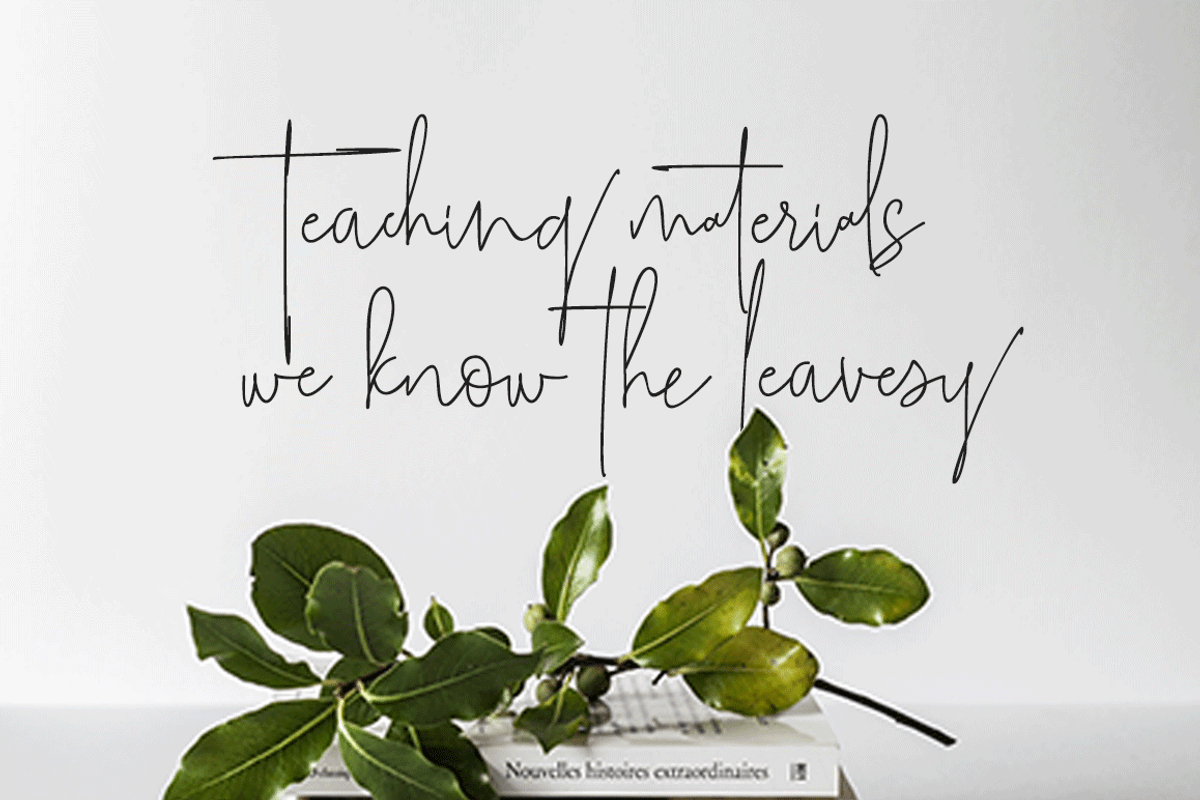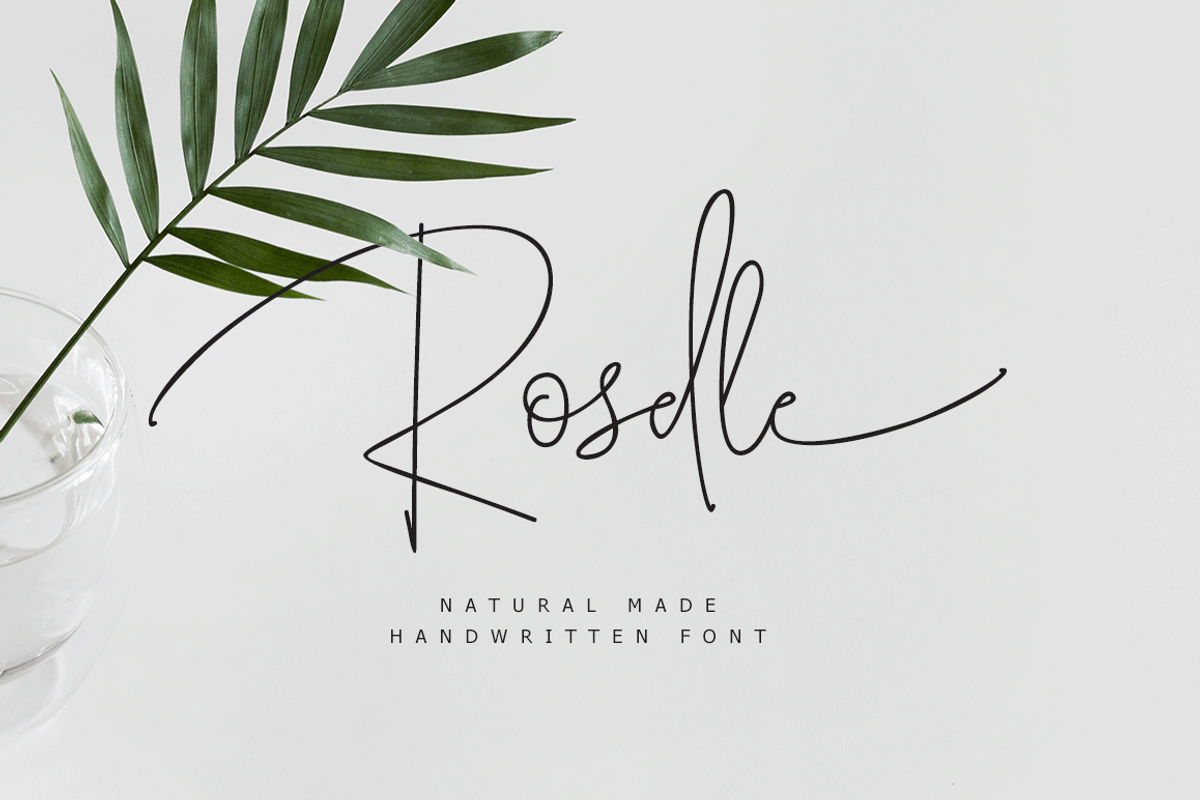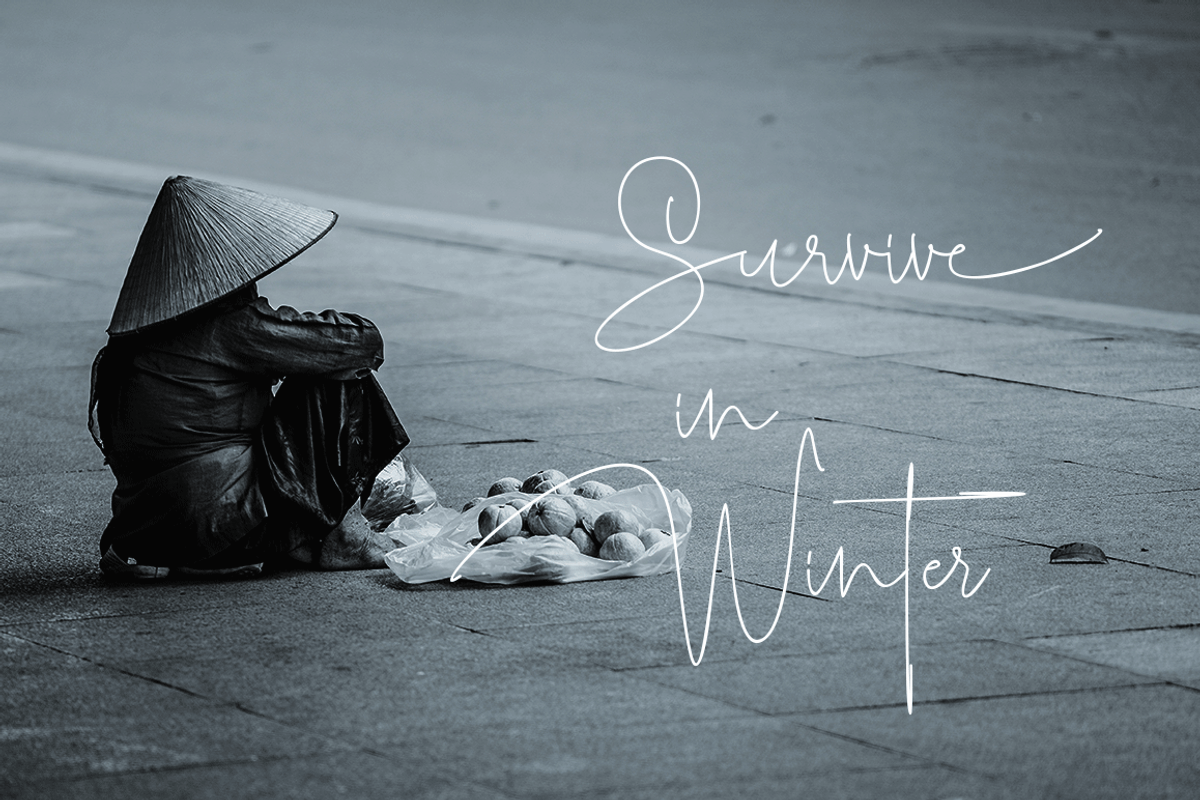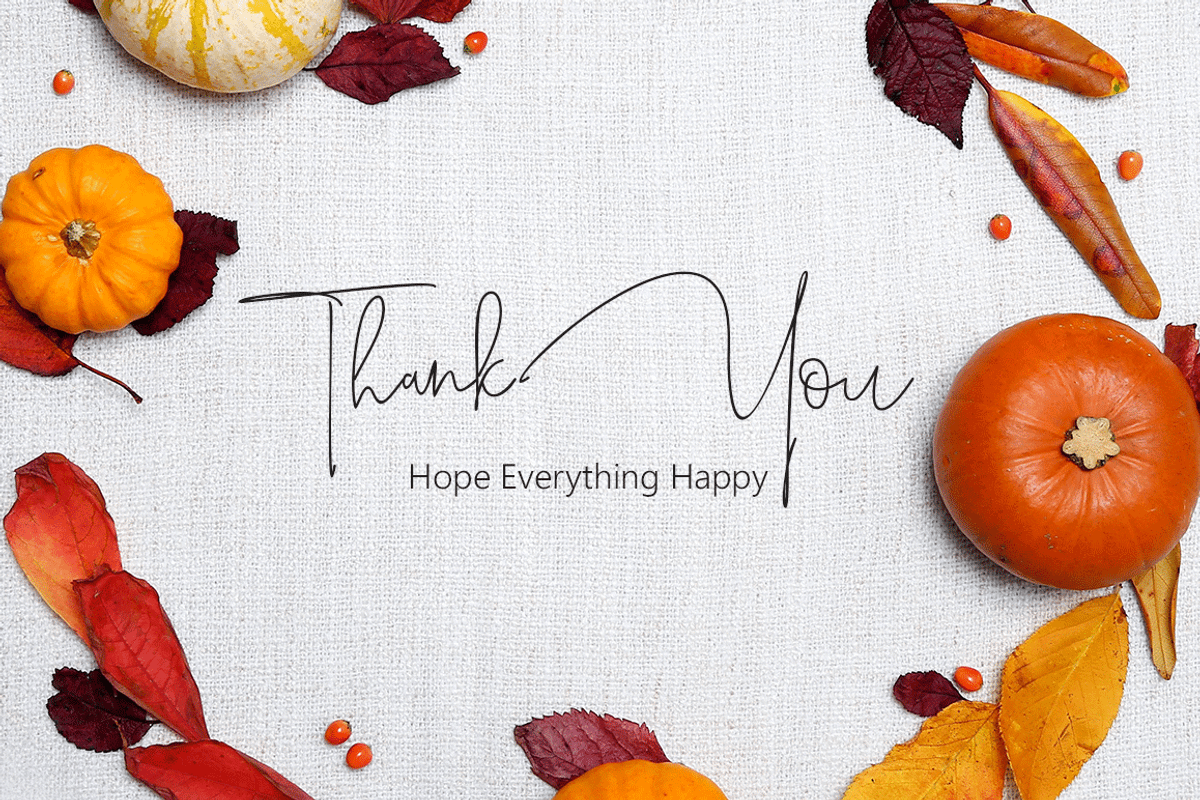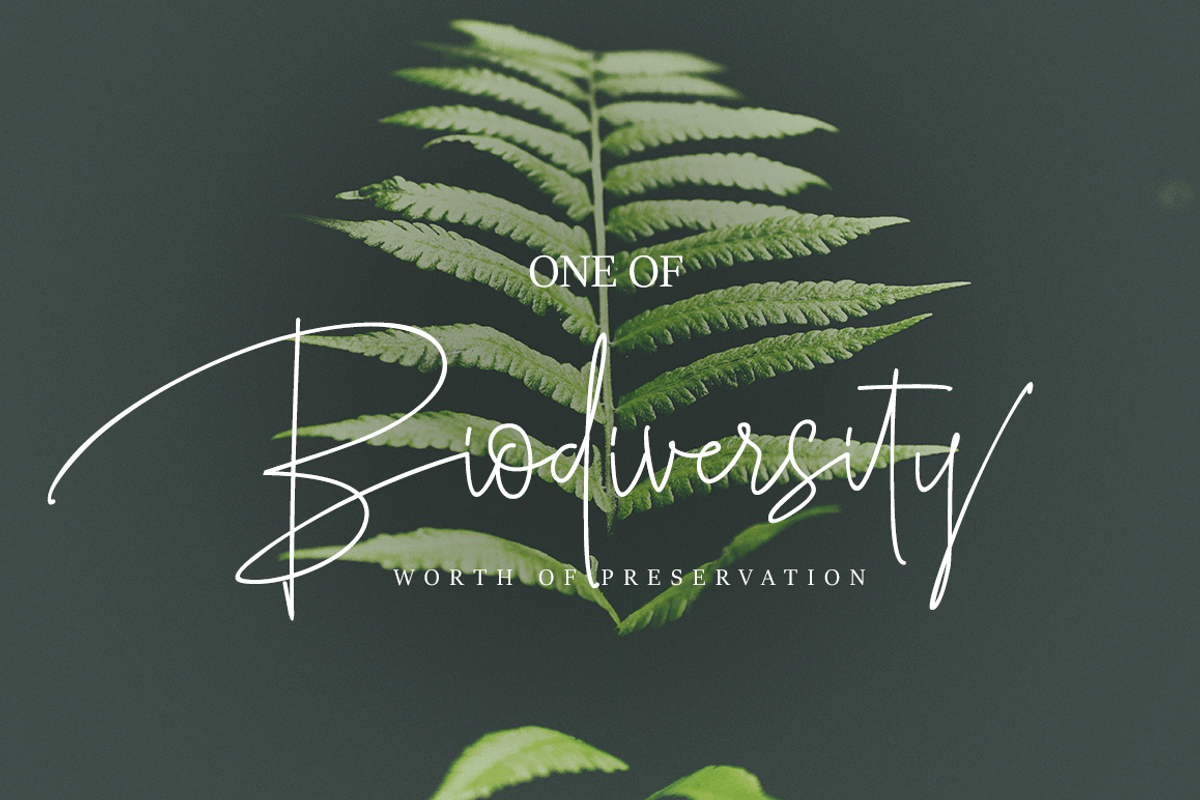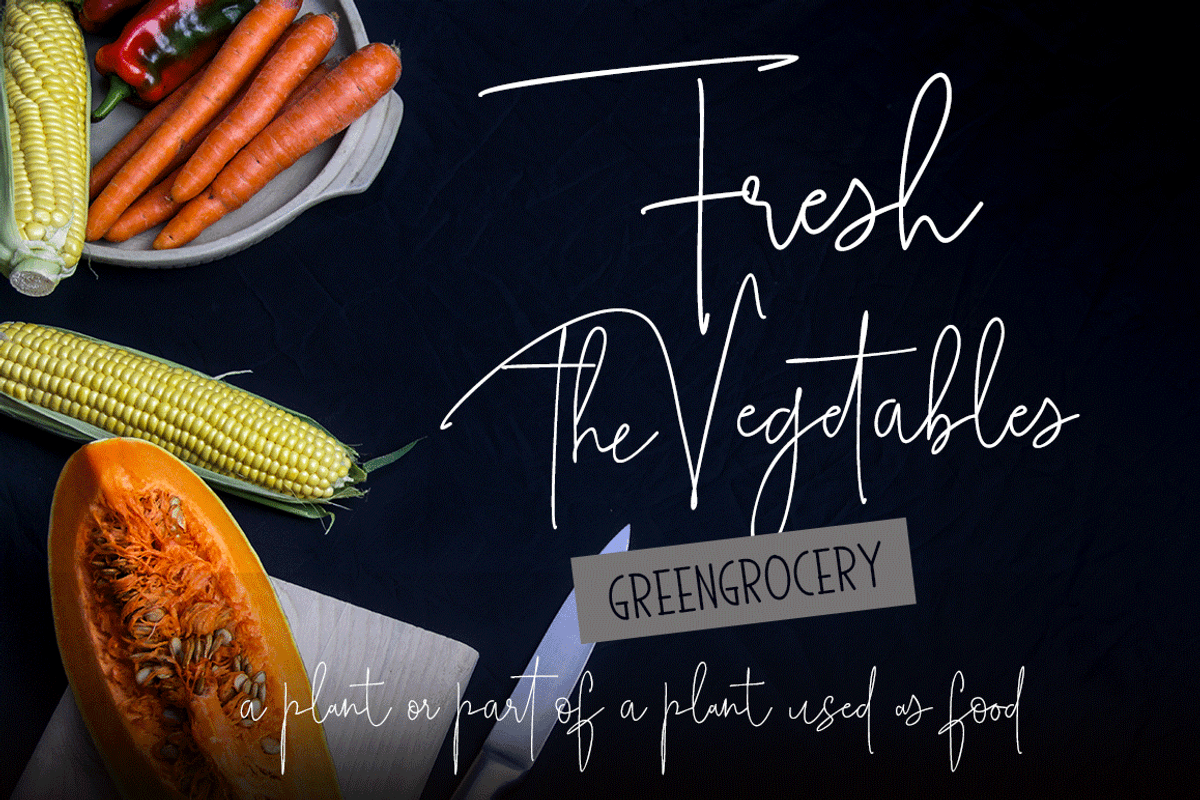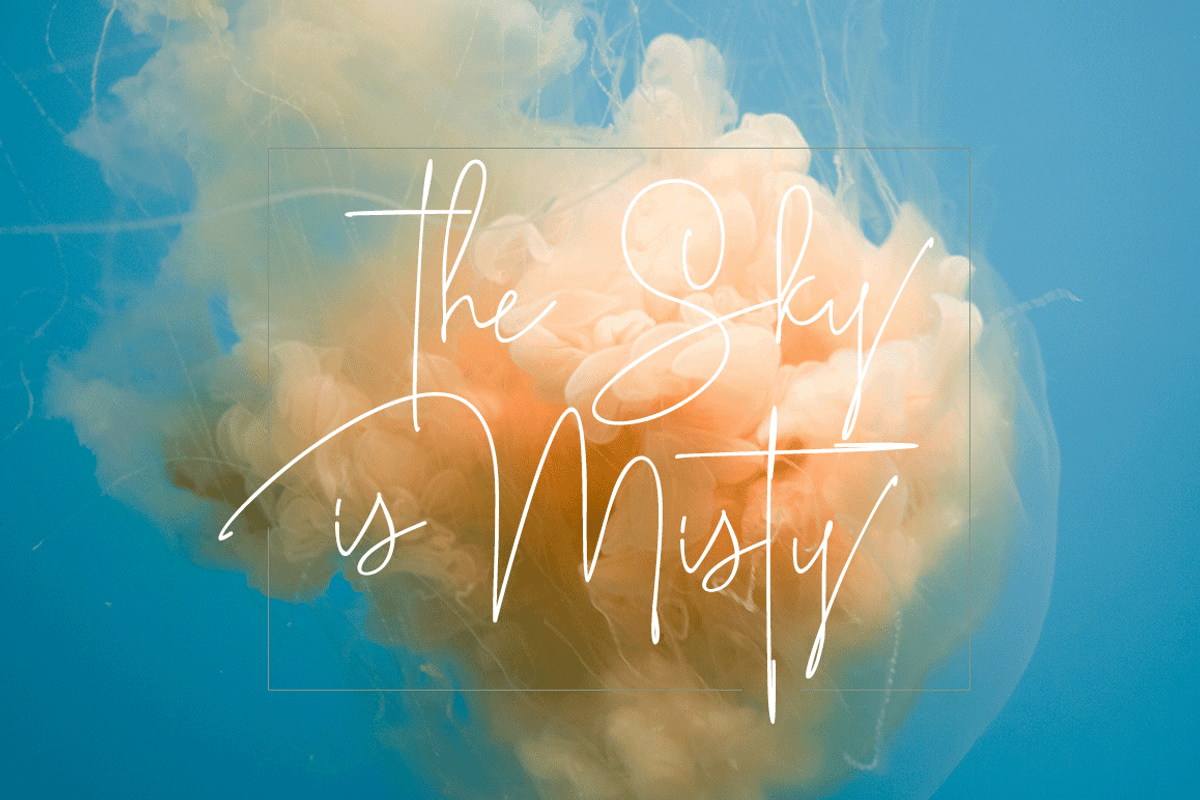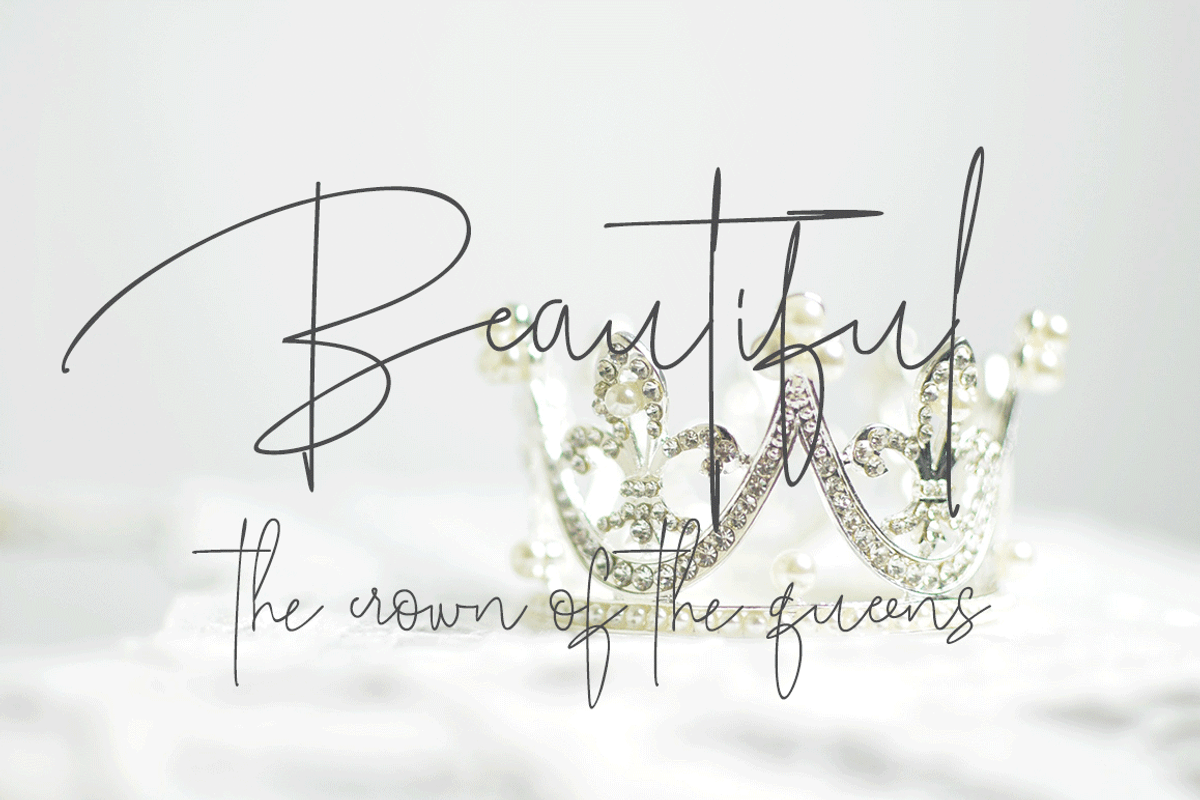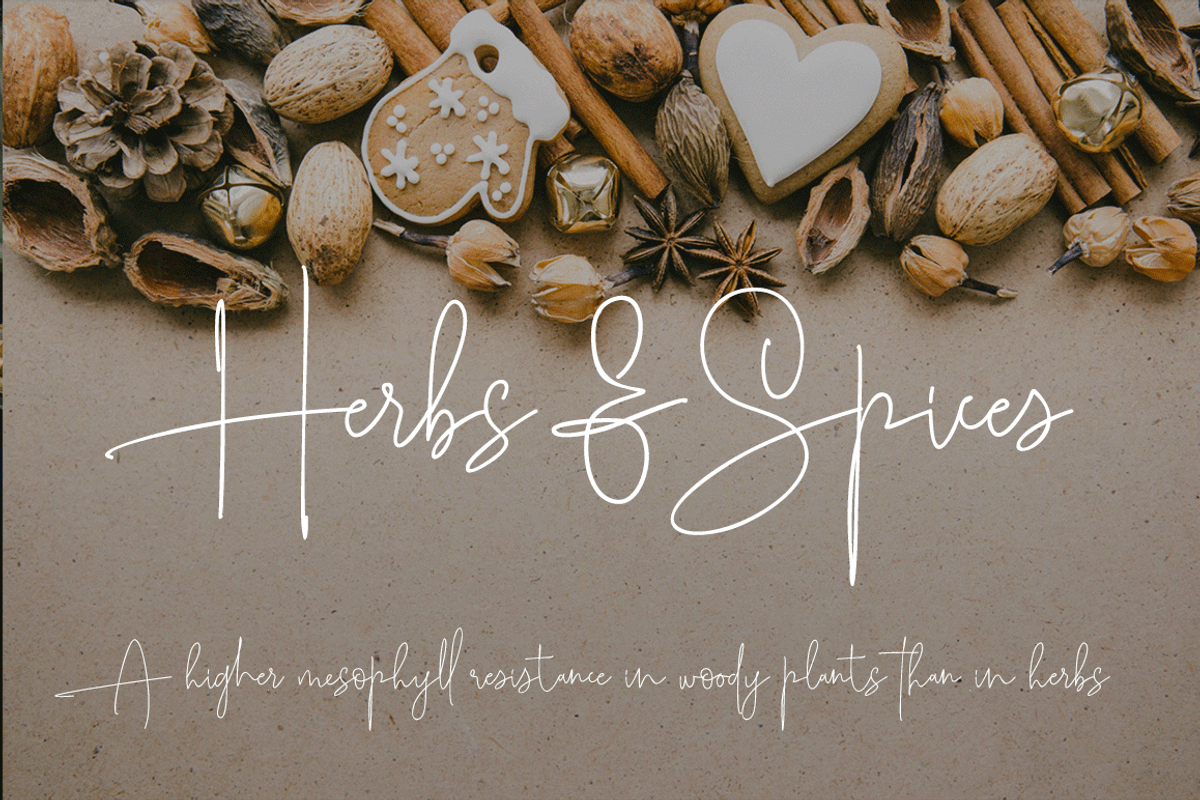
Roselle
Roselle TYPOGRAPHY
Foselle a work that is purely a result of handwriting, has a natural characteristic. this is perfect for invitations, signatures, blogs, social media, business cards, product brands.
Roselle a work that is purely handwritten, has its own characteristics with the style of monoline It is perfect for invitations, signatures, blogs, social media, business cards, product brands, also equipped with 63 ligature.